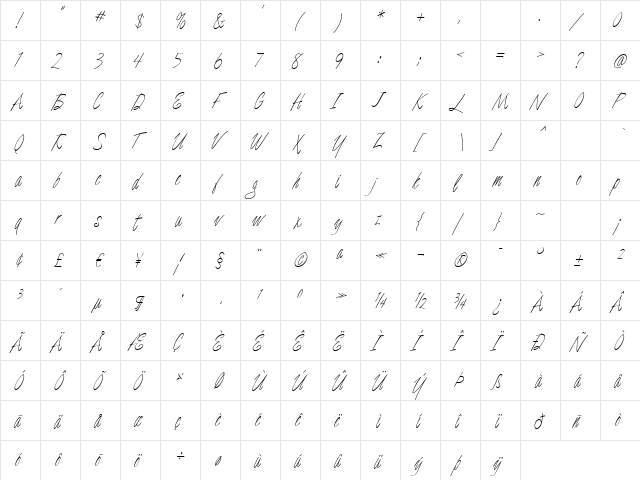
Luce One Regular
Design Context for Luce One Typeface
Luce One is a composed and adaptable typeface that performs quietly and consistently across a wide range of design contexts.